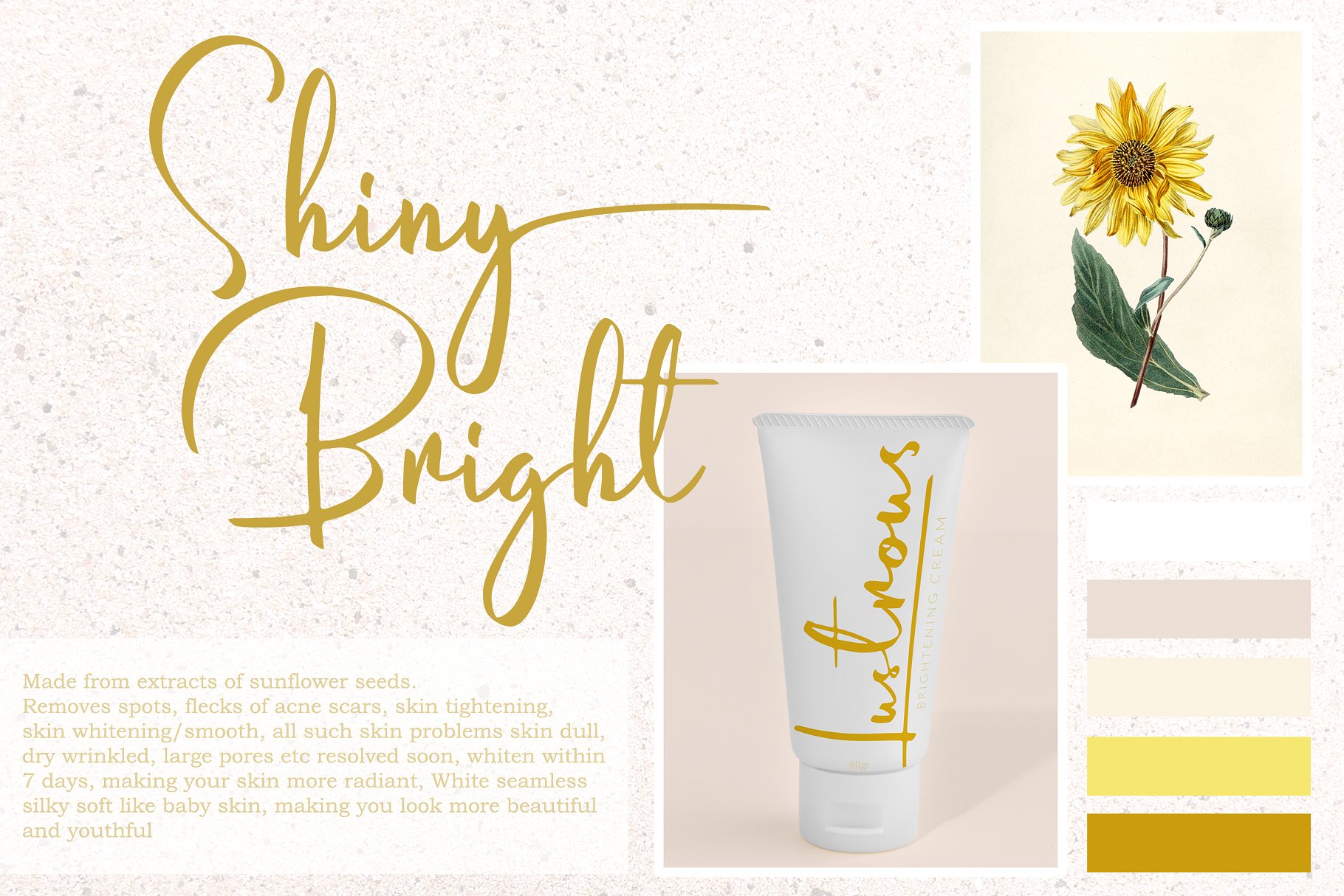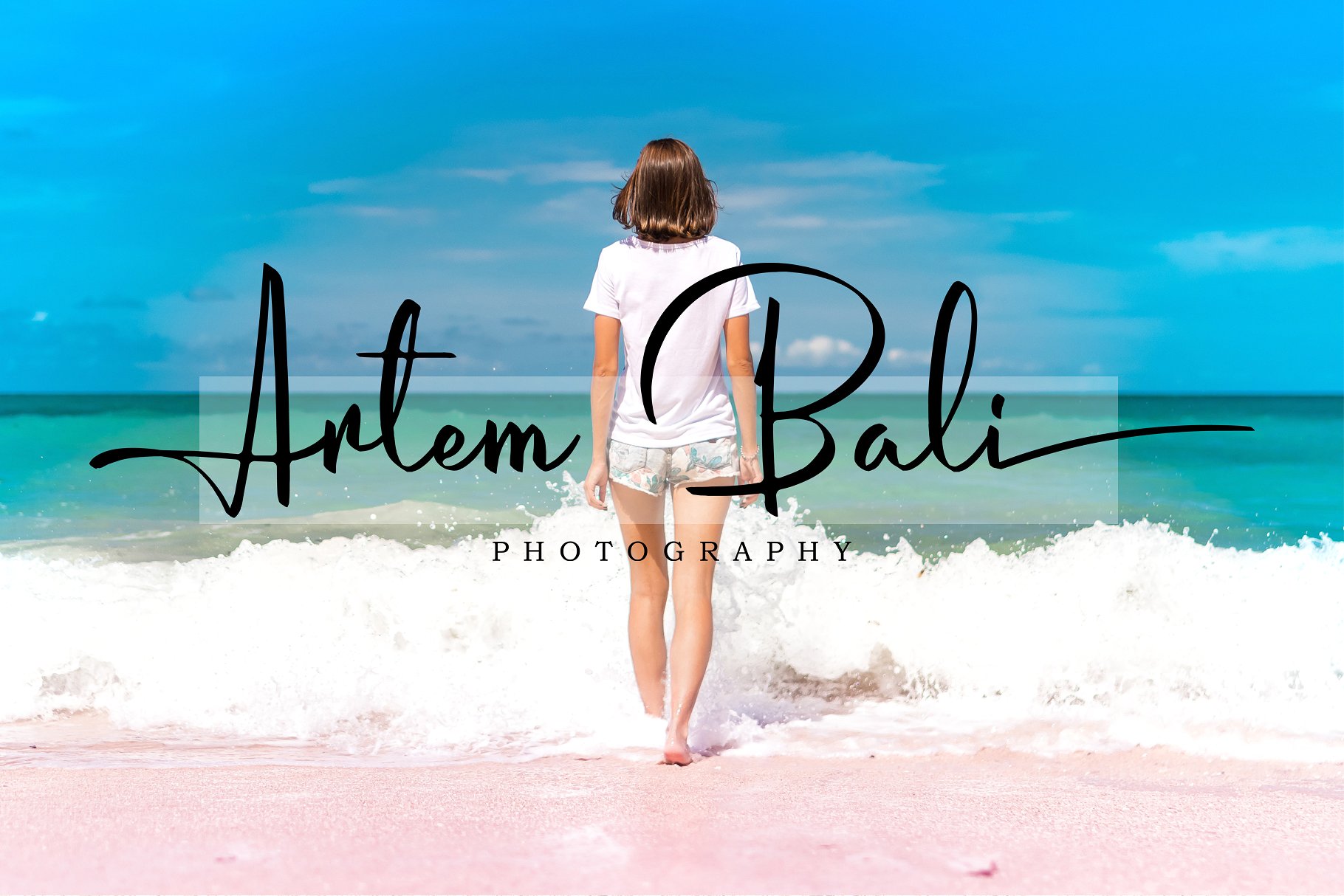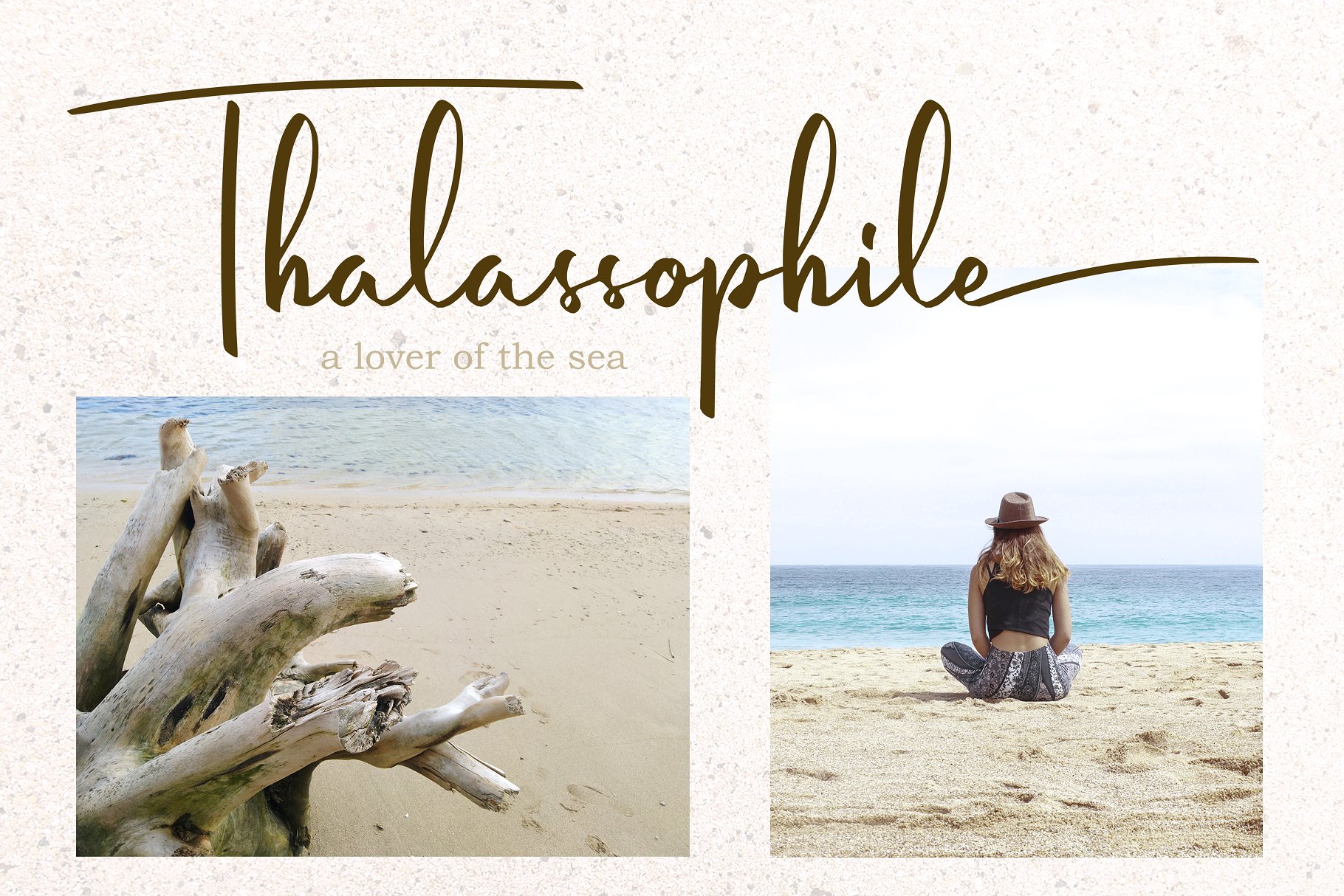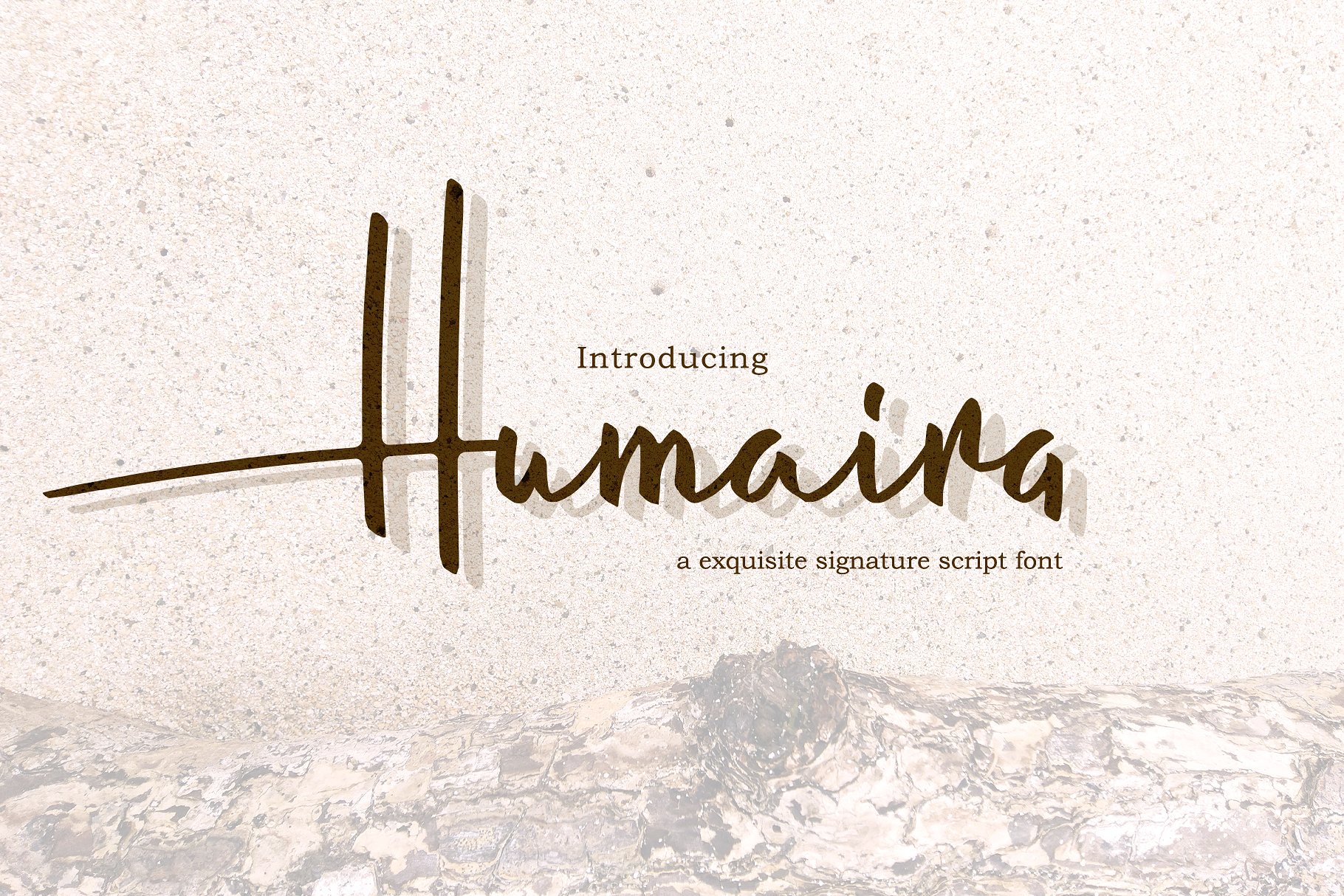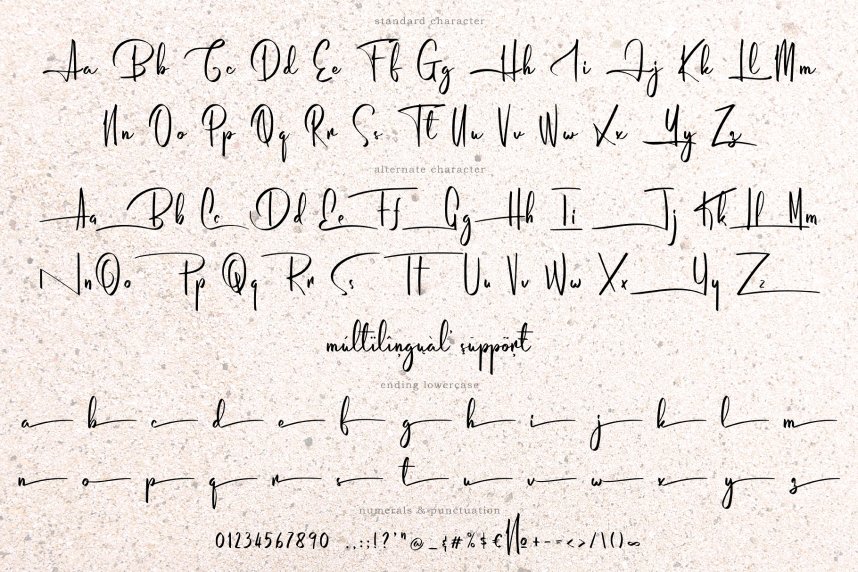
Humaira Script Font
Hello world..!! This is a exquisite signature script font. If you’re looking to create high fashion logos, understated signatures, and stunning graphics, look no further. Introducing Humaira Handwritten Font! Humaira Script Font – is the exquisite signature font, done carefully each letter. by Humaira you will feel different sensations because it serves typical style Humaira wrote manually by hand.
Humaira fits perfectly in a variety of design needs, such as : signature logo, photography, packaging products, branding, print design, invitation, watermarks, magazines, even posts on social media, and more.